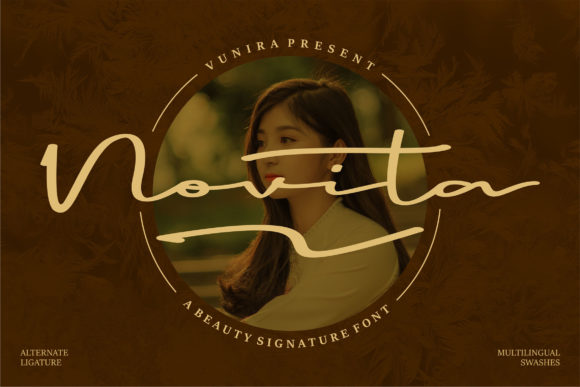
Unveil the beauty of Novita Font, a masterpiece crafted by Vunira, designed to captivate your designs with its round lettered, natural, and relaxed handwritten style. Immerse yourself in a world of creativity as you explore the limitless possibilities that await.
Novita Font is not just a font; it's an experience, a journey through the realm of visual aesthetics. Its incredibly versatile nature allows it to seamlessly adapt to any project, adding a touch of elegance and sophistication. Whether you're a seasoned graphic designer or just starting your creative journey, Novita Font will elevate your designs to new heights.
With Novita Font, you'll discover a font that dances across the page, captivating your audience with its natural flow and effortless charm. Its round letters exude a sense of warmth and playfulness, inviting your readers to engage with your content. Unleash your imagination and create designs that speak volumes, leaving a lasting impression on all who see them.
Novita Font is more than just a collection of characters; it's an expression of your creativity, a reflection of your unique style. Whether you're designing logos, branding materials, social media graphics, or anything in between, Novita Font will add a touch of magic to your work. Experience the joy of creating designs that resonate with your audience, designs that tell a story and leave a lasting impact.
Embrace the beauty of Novita Font and unlock the full potential of your creativity. Let your designs bloom with elegance, charm, and sophistication. Download Novita Font today and embark on a journey of visual storytelling that will leave your audience breathless.
Fall in love with the enchanting Novita Font and elevate your designs to new heights. Experience the magic of handwritten beauty and create designs that captivate the hearts of your audience. Download Novita Font today and unlock a world of creative possibilities.